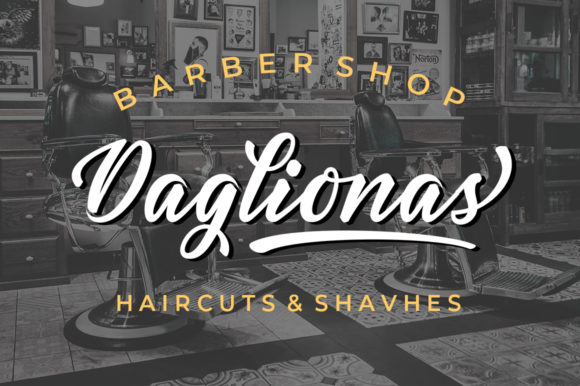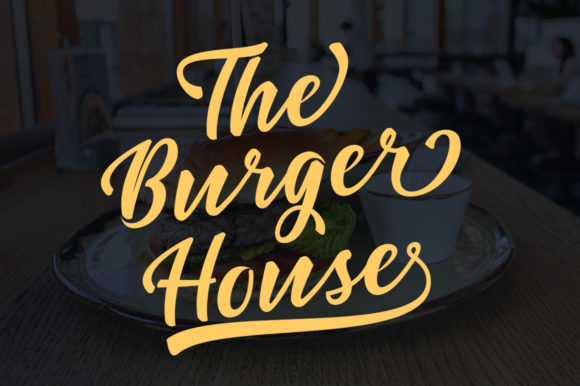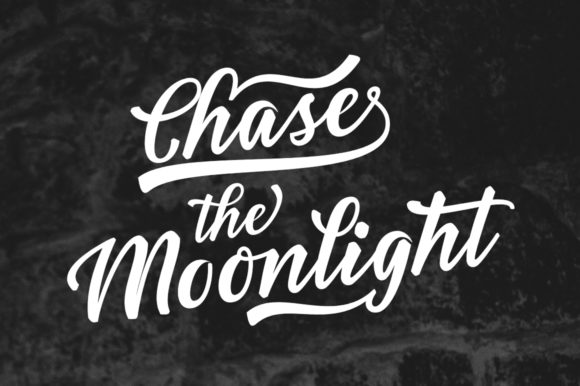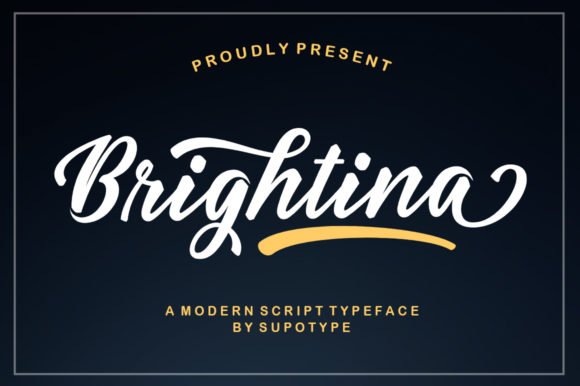
Introduction to Brightina Script Font
Brightina Script is a fun and cute handwritten font with a lot of personality.
Fall in love with its timeless charm .
Why Choose Brightina Script Font?
Brightina Script Font offers exceptional quality and versatility, making it a valuable addition to your design toolkit. Whether you’re creating for personal projects or commercial use, Brightina Script Font delivers professional results.